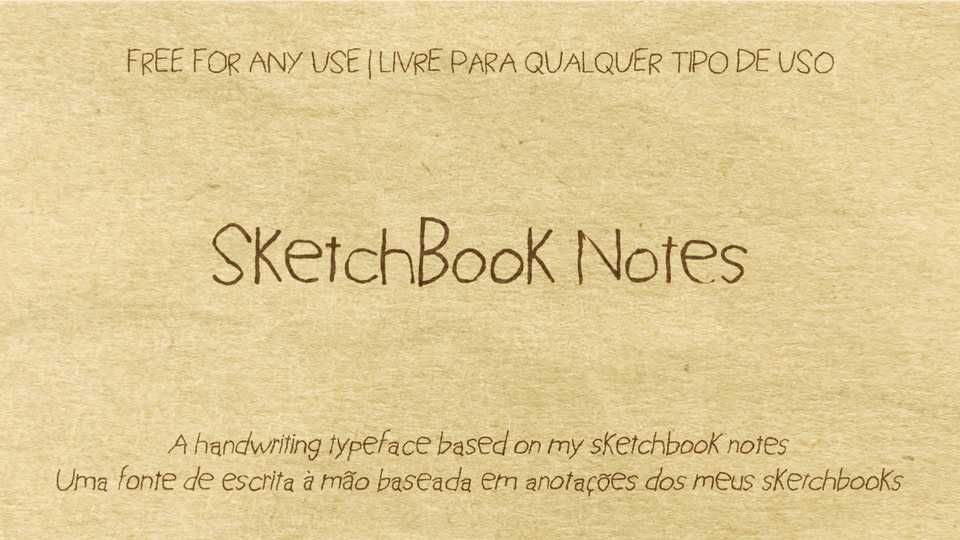
Download SketchBook Notes font,is a casual and expressive handwriting typeface designed to capture the spontaneous charm of handwritten journal entries.
Designer: Mateus Pelanda